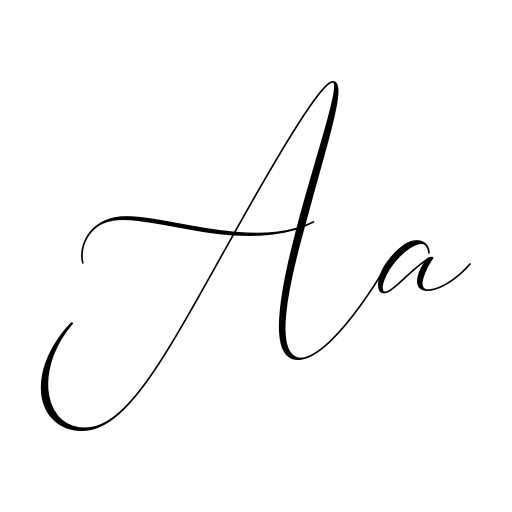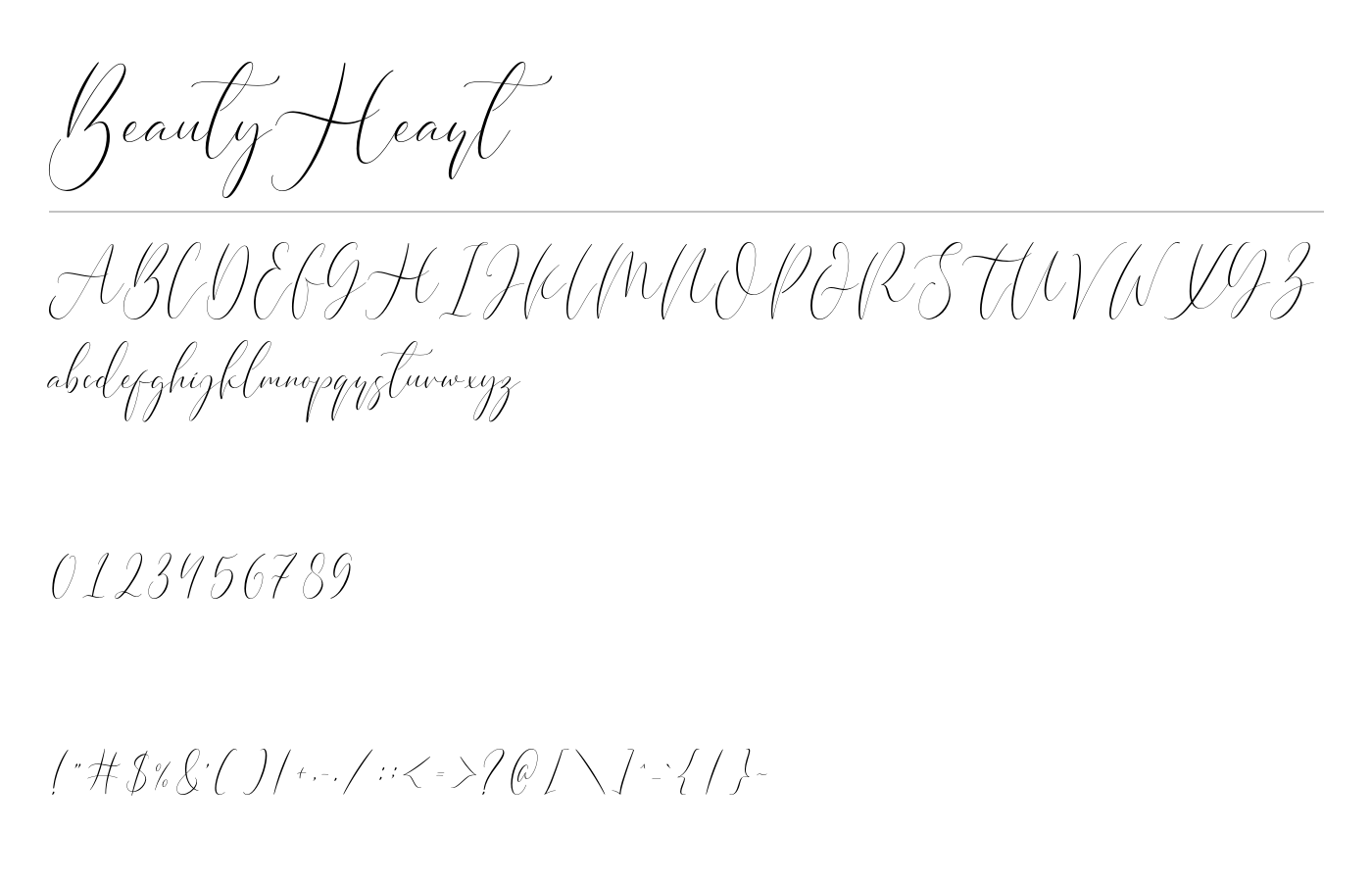
BeautyHeart is an elegant, delicate script font featuring fine, flowing lines that create a graceful and sophisticated appearance. Its slender strokes and high contrast give it a light, airy feel, making it perfect for romantic or upscale designs such as wedding invitations, luxury branding, and stylish logos. This font’s refined character adds a touch of beauty and artistry wherever a sense of elegance and charm is desired.
BeautyHeart Font
About BeautyHeart Font